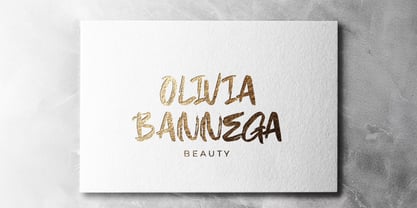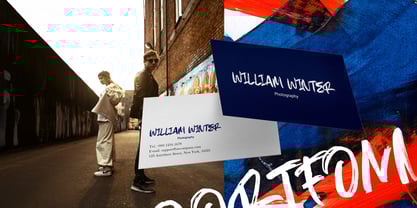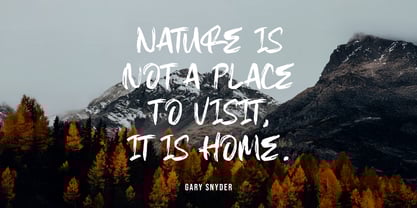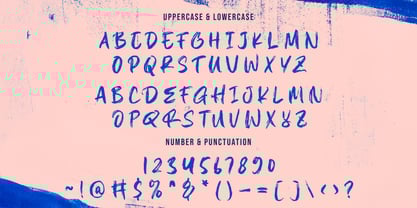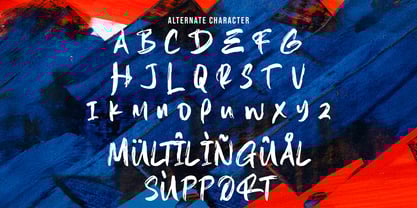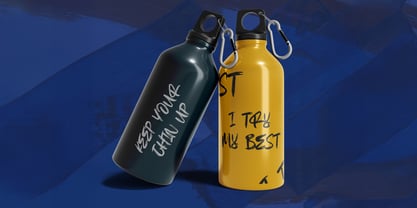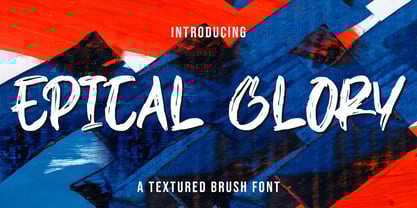
Epical Glory
by Stringlabs Creative Studio
The Epical Glory Font Family was designed by Virgiawan Listanto and published by Stringlabs Creative Studio. Epical Glory contains 1 styles.
Epical Glory is a powerful textured brush font designed with bold strokes and rough details that exude strength and creativity. Its handcrafted style gives an authentic, energetic feel, making it perfect for posters, logos, apparel, music covers, sports designs, and social media graphics. With its striking brush texture and dynamic flow, Epical Glory adds intensity and artistic flair, ensuring your projects stand out with confidence and bold visual impact.